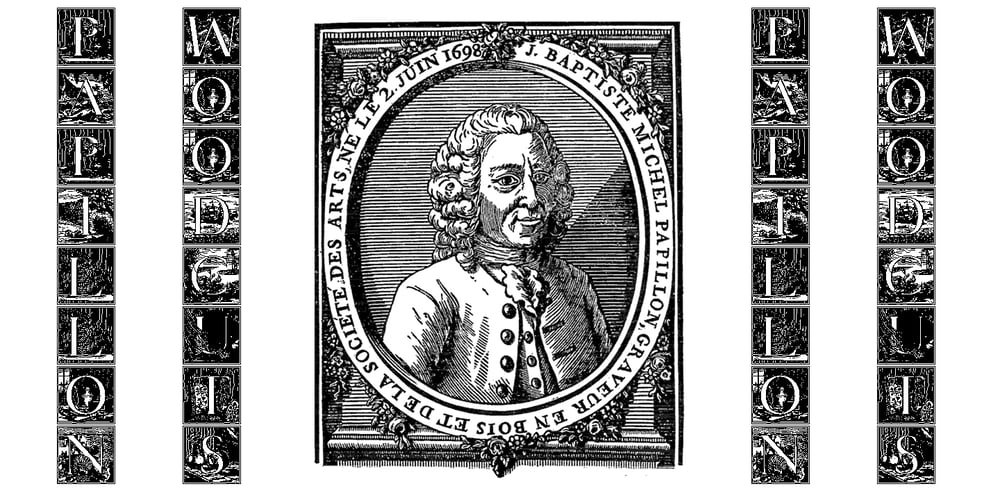
Papillon Woodcuts
Papillon Woodcuts font
Papillon Woodcuts Font Family was designed by Jose Jimenez and published by Celebrity Fontz. Papillon Woodcuts contains 1 styles and family package options. Papillon Woodcuts is a digital revival of an ornate alphabet by French engraver Jean Michel Papillon dating back to 1760, when engraving was very fashionable in France. Each letter is displayed with a different themed background, such as a ship at sea; a fancy table topped with a bounty of fruits; flying birds; a parasol with flowers; playful cherubs; rich textured drapes and tapestries; and many more. These woodcut initials are especially beautiful when used at the beginning of a paragraph as in olden texts.